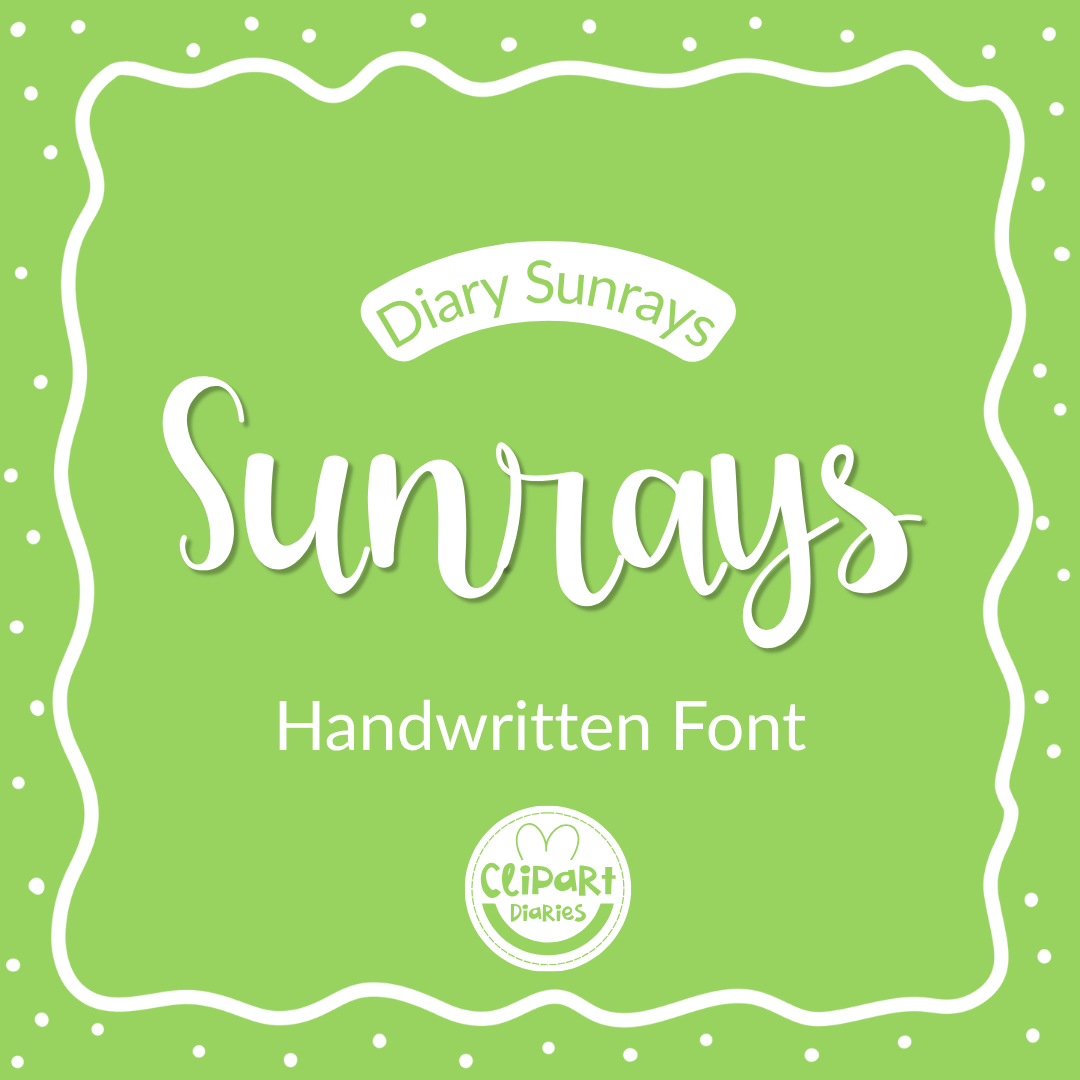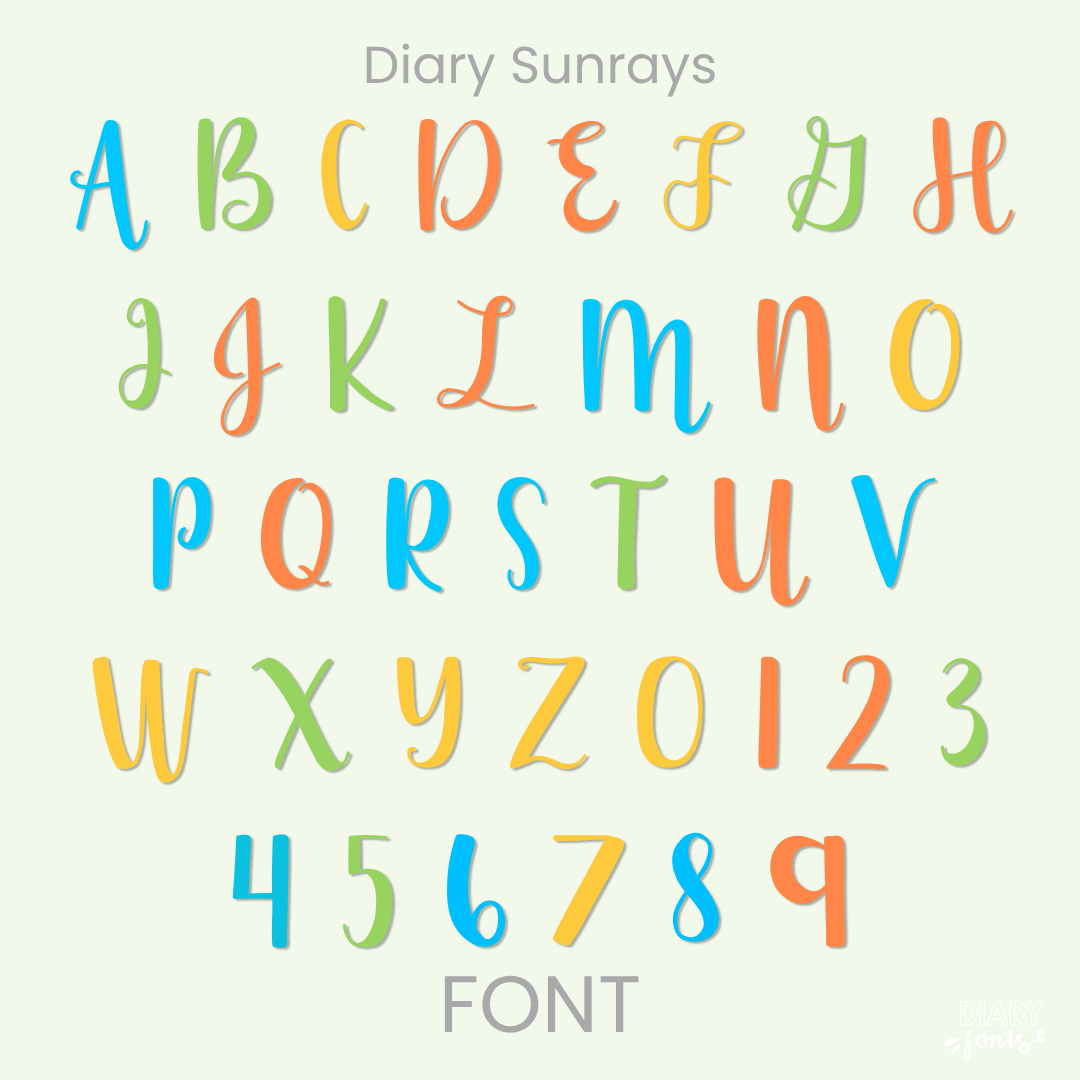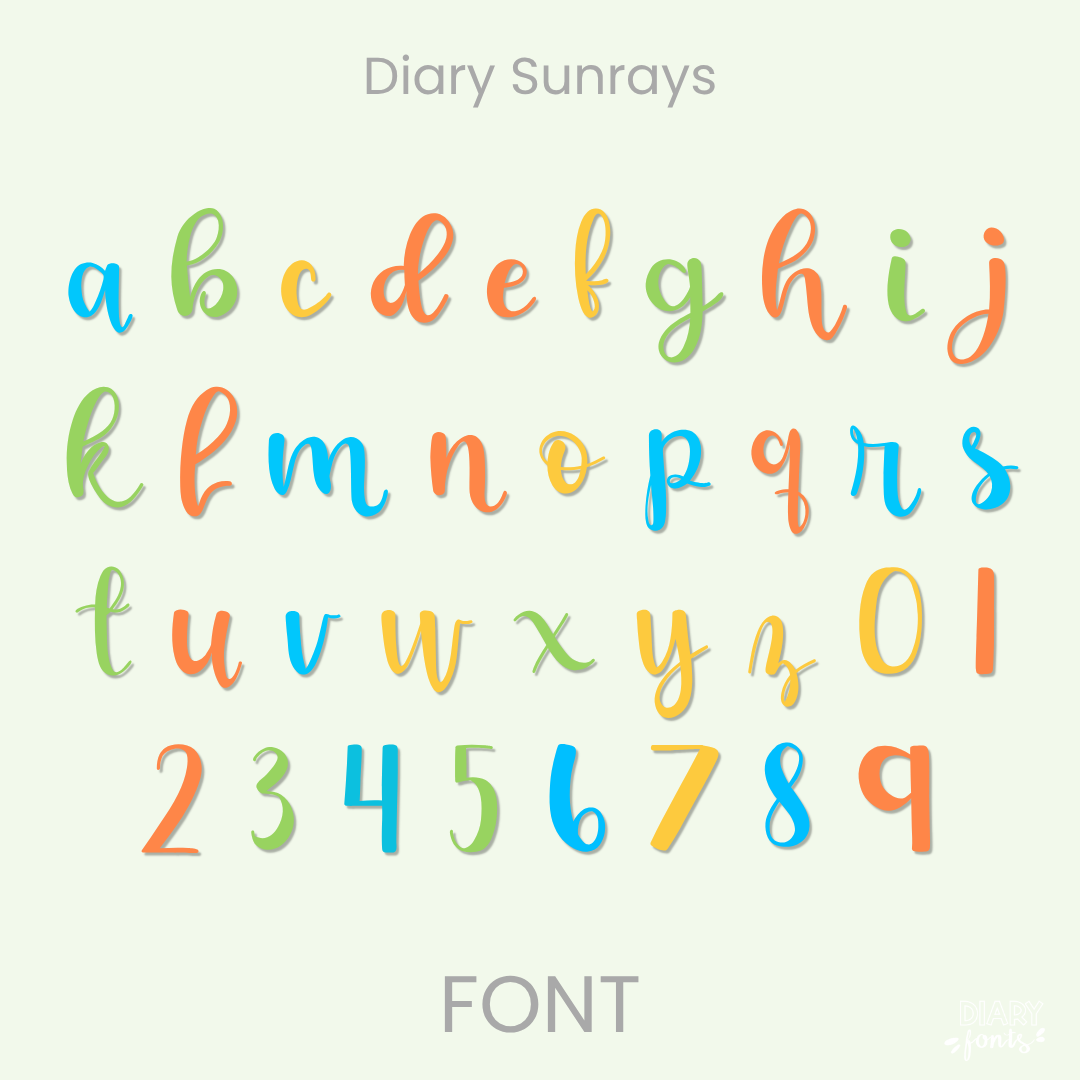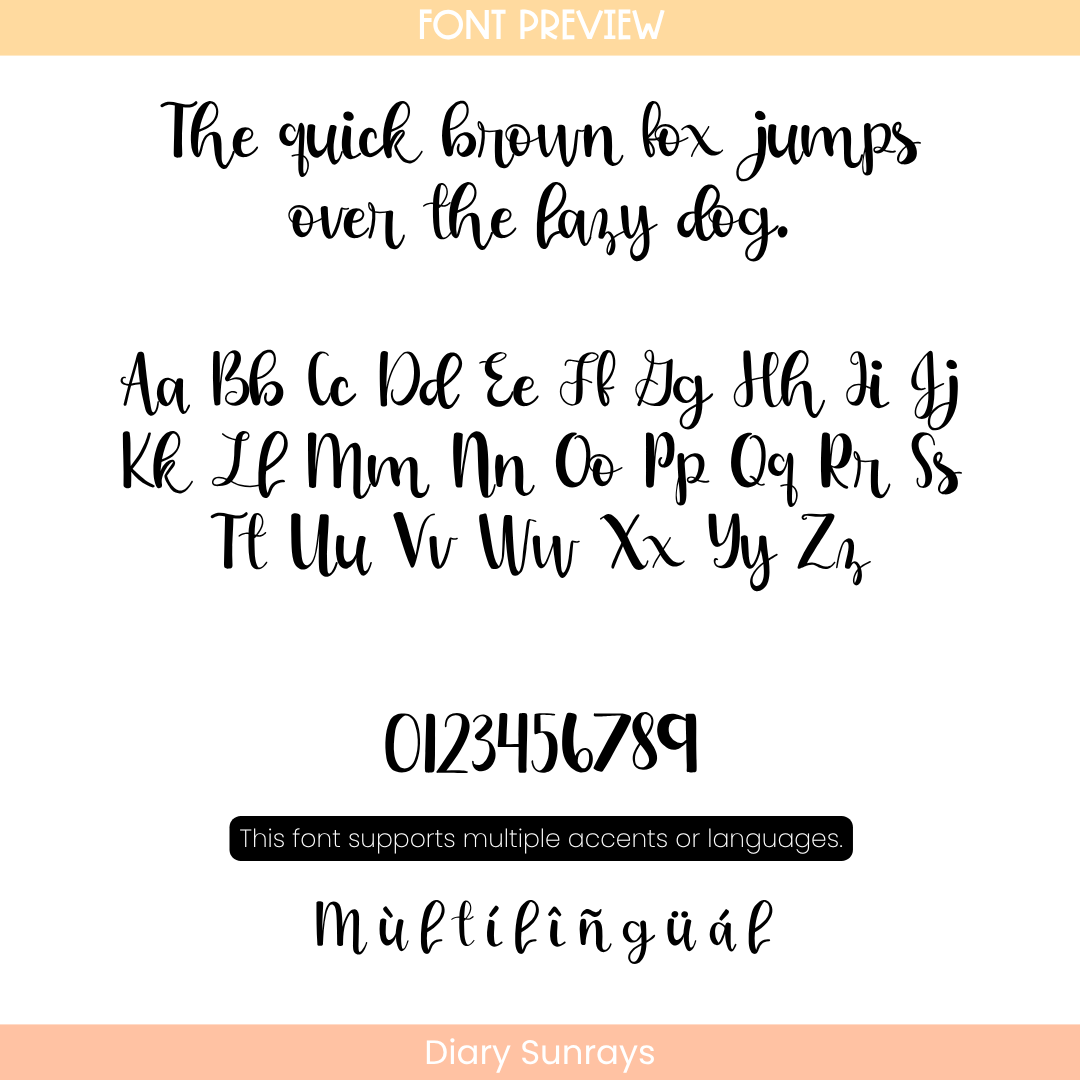
If you’ve been searching for a go-to playful script font that captures the warm, bright energy of a sunny morning layout while keeping your text looking incredibly neat, Diary Sunrays is about to become your new absolute favorite. It features a beautifully fluid, modern brush lettering structure with elegant thick-and-thin strokes that dance gracefully along the baseline. Because these sweet, hand-drawn letters maintain a perfectly vertical posture and have plenty of open breathing room between characters, it completely eliminates visual clutter—giving you an exceptionally clear and legible worksheet typography choice for your sweet students.
It is the absolute perfect choice for typing up festive seasonal lessons, classroom community flyers, morning meeting message boards, and elegant instructional slide fonts where you want a friendly, styled vibe without sacrificing readability. Inside the download, you’ll get a full set of neat uppercase and lowercase script letters, clean matching numbers, and multi-accent marks for complete multilingual support. It drops right into Canva, MS Office, or Adobe on your desktop, and pairs beautifully with Procreate and GoodNotes on your iPad. Whether you’re prepping daily printables for your own sweet classroom or designing a gorgeous new commercial-use product line for your online teacher shop, this decorative display font adds a touch of confident, warm style to your creative toolkit.